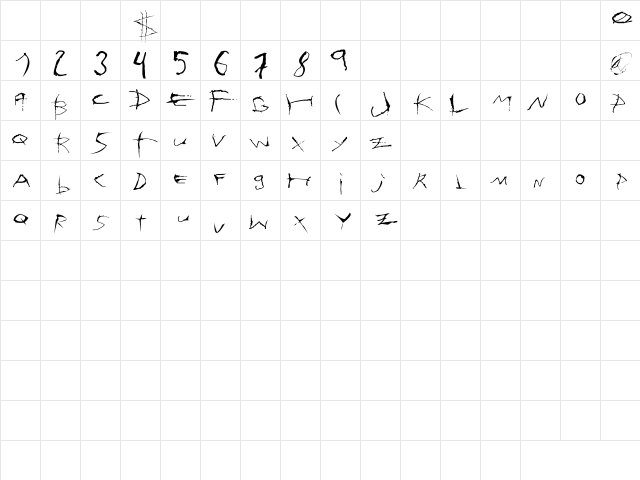
Style: Sehnsucht Font
Foundry: High-Logic
Designer: High-Logic - Erwin Denissen
Design Context for Sehnsucht Font
Sehnsucht Font is a composed and adaptable typeface that performs quietly and consistently across a wide range of design contexts.